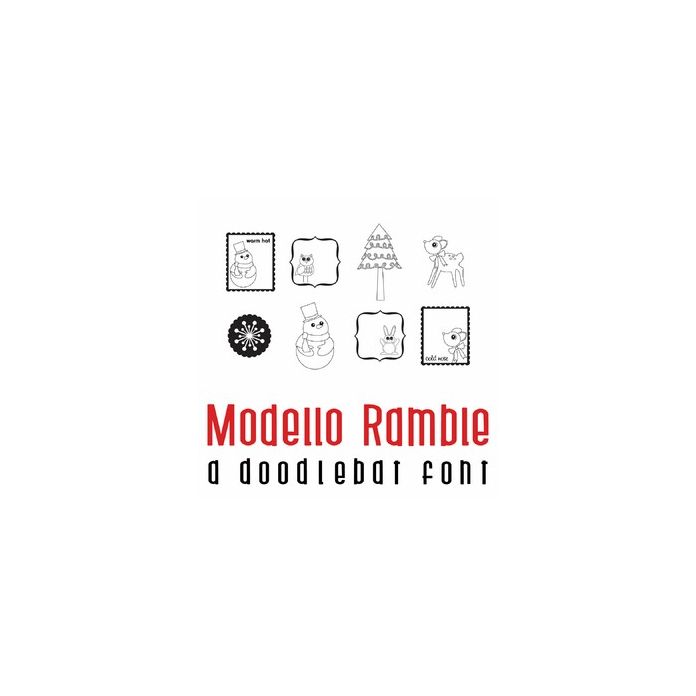
This fun doodlebat font features 26 Christmas labels, tags and imagery. Perfect for cards, gifts, decor, crafts, scrap book pages, planner stickers and more!